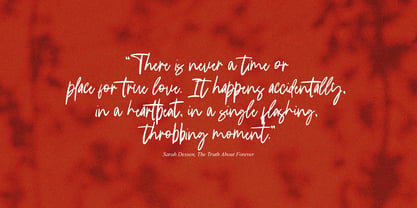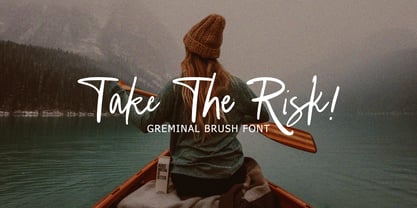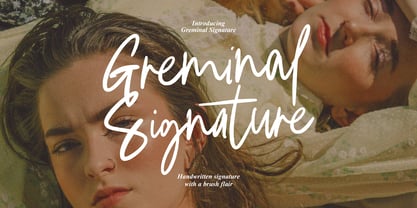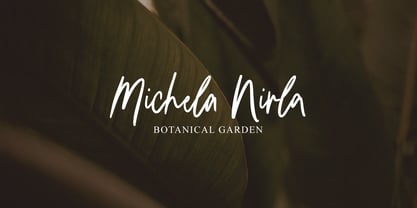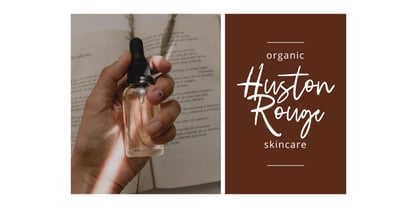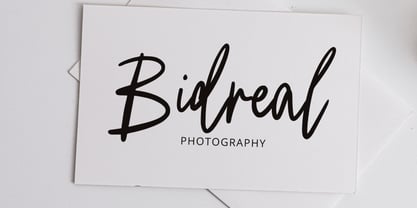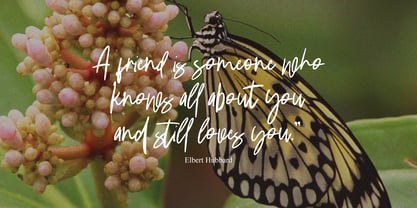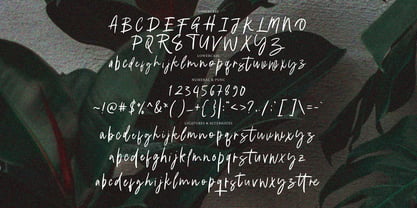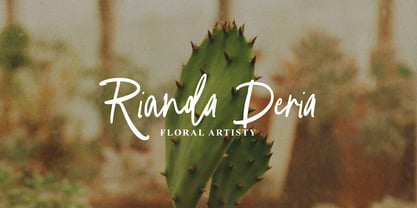
Greminal Signature Brush
The Greminal Signature Brush Font Family was designed by Dzulka Elfira and published by Tebaltipis Studio. Greminal Signature Brush contains 1 styles. More about this family
Greminal Signature Brush with a handmade Signature style, decorative characters and a dancing baseline! So beautiful on invitation like greeting cards, branding materials, business cards, quotes, posters, and more!!
Greminal Signature Brush come with 250+ glyphs. The alternative characters were divided into several Open Type features such as Swash, Stylistic Sets, Stylistic Alternates, and Ligature. The Open Type features can be accessed by using Open Type savvy programs such as Adobe Illustrator, Adobe InDesign, Adobe Photoshop Corel Draw X version, And Microsoft Word. And this Font has given PUA unicode (specially coded fonts). so that all the alternate characters can easily be accessed in full by a craftsman or designer.